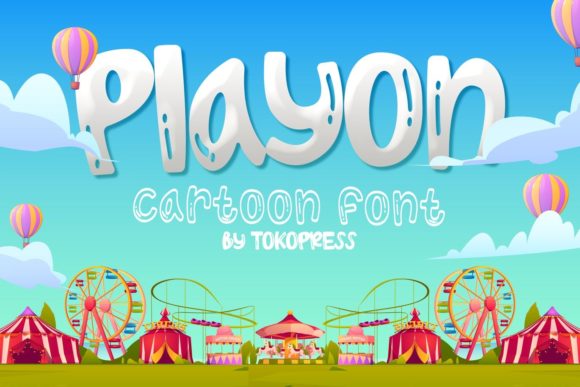
Playon Font
Journey into the realm of Playon Font, a display font that exudes coolness, bubbliness, and a playful spirit. Crafted by the skilled hands of tokopress.fonts, this font is a visual masterpiece that will add a touch of delight to any project.
Picture this: You're creating a captivating YouTube video that demands attention. As you type in the title, you realize that ordinary text just won't cut it. That's where Playon Font steps in, transforming your words into an eye-catching spectacle. Its bubbly curves and cheerful demeanor will make your videos pop, leaving viewers mesmerized by the vibrant energy radiating from each letter.
Now, envision yourself designing a children's game that sparks imagination and laughter. Playon Font becomes your trusty companion, helping you create a whimsical world that kids will adore. Its playful nature perfectly captures the essence of childhood, inviting young minds to embark on extraordinary adventures with every click and tap.
But Playon Font's versatility extends far beyond YouTube videos and children's games. It's like a magic wand that can transform any creative project into a visual masterpiece. Whether you're designing logos, posters, flyers, or social media graphics, Playon Font adds a touch of charm and personality that leaves a lasting impression.
So why settle for ordinary fonts when you can unleash the magic of Playon Font? Let your creativity soar as you explore endless possibilities, knowing that this font will faithfully accompany you on your artistic journey. Download Playon Font today and elevate your designs to new heights of brilliance.